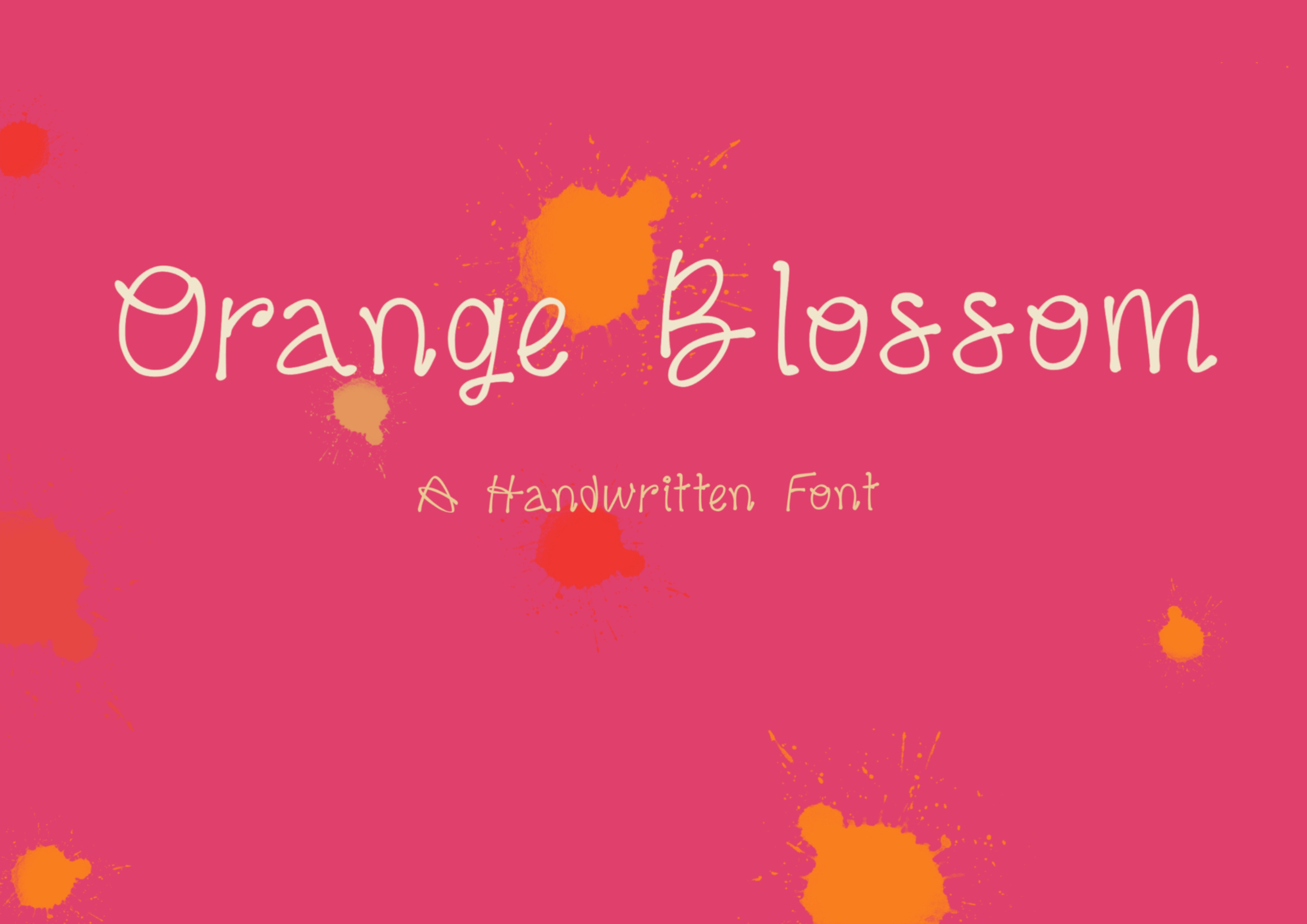
ORANGE BLOSSOM FONT, Handwritten
Orange Blossom is a sweet, thin and quirky handwritten font. Suitable to a wide variety of designs due to its neat and simple style, this font has the potential to become your favorite go-to font, no matter the occasion!